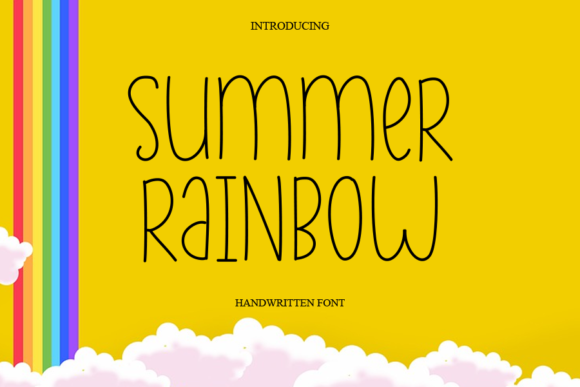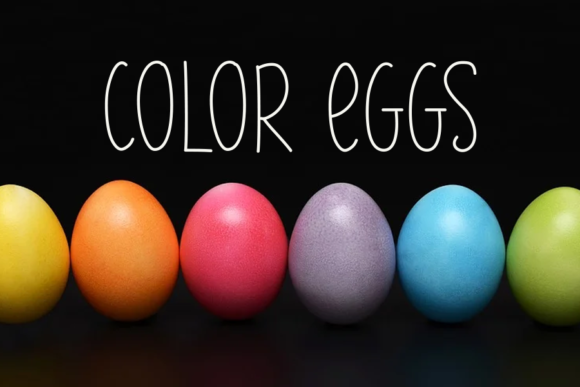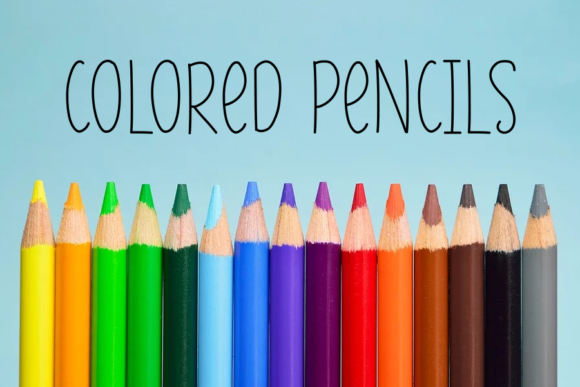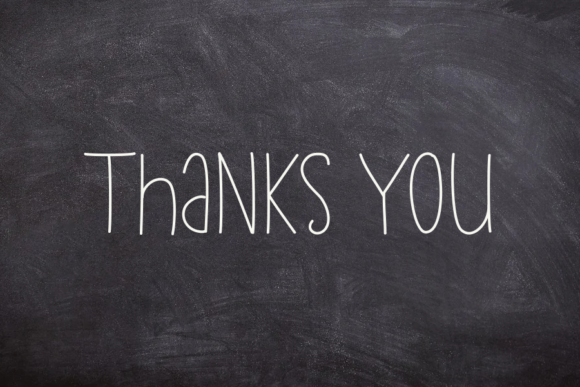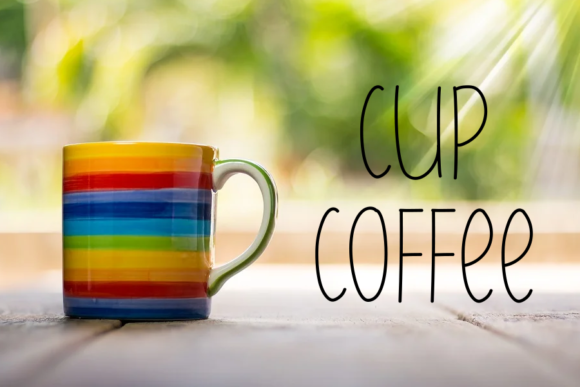
Summer Rainbow Font
About Summer Rainbow Font
Summer Rainbow is a thin lettered and cute handwritten font, that can be used for all chalkboard quotes or teaching material! Its authentic look will add a personal and realistic feel to your designs.